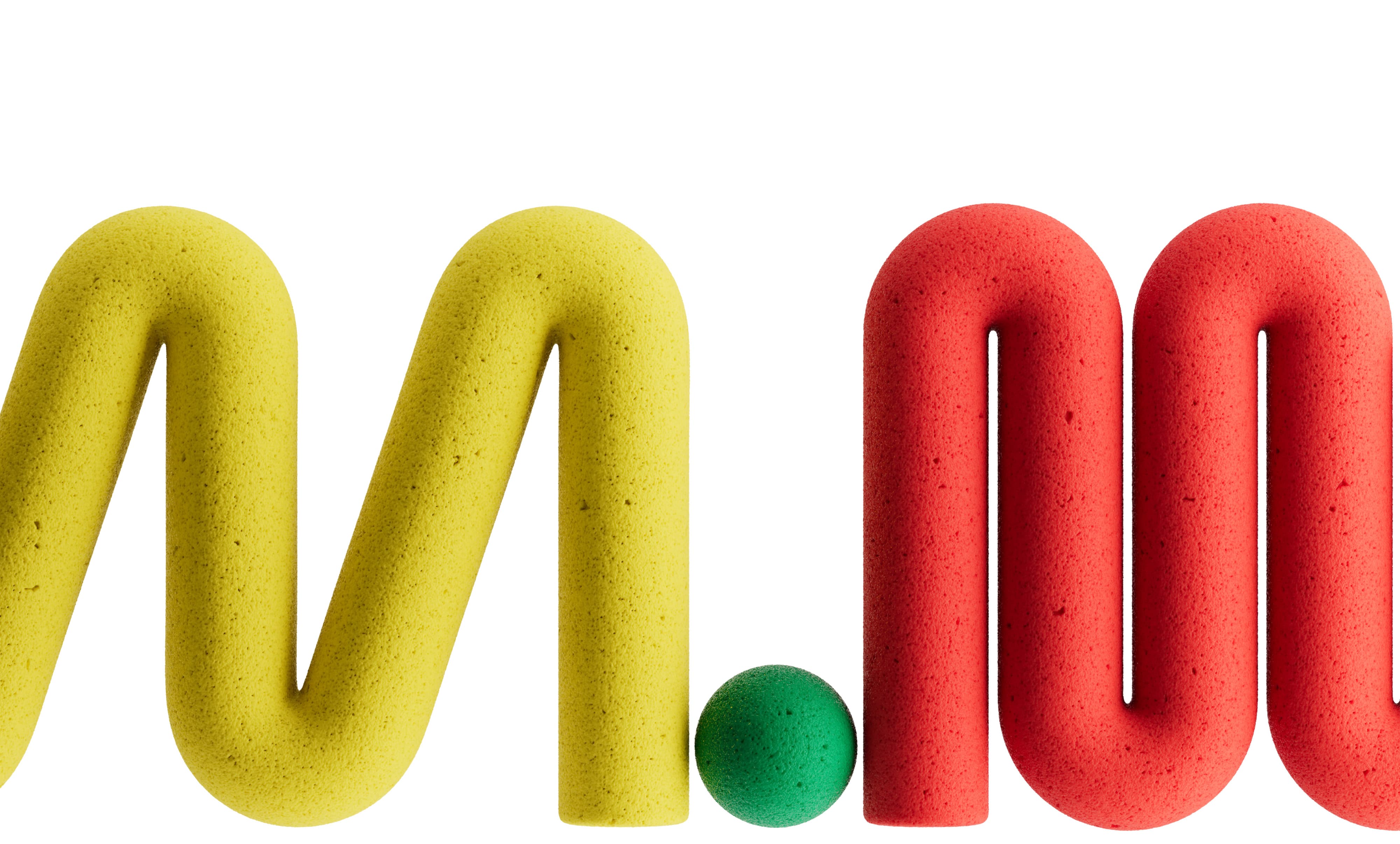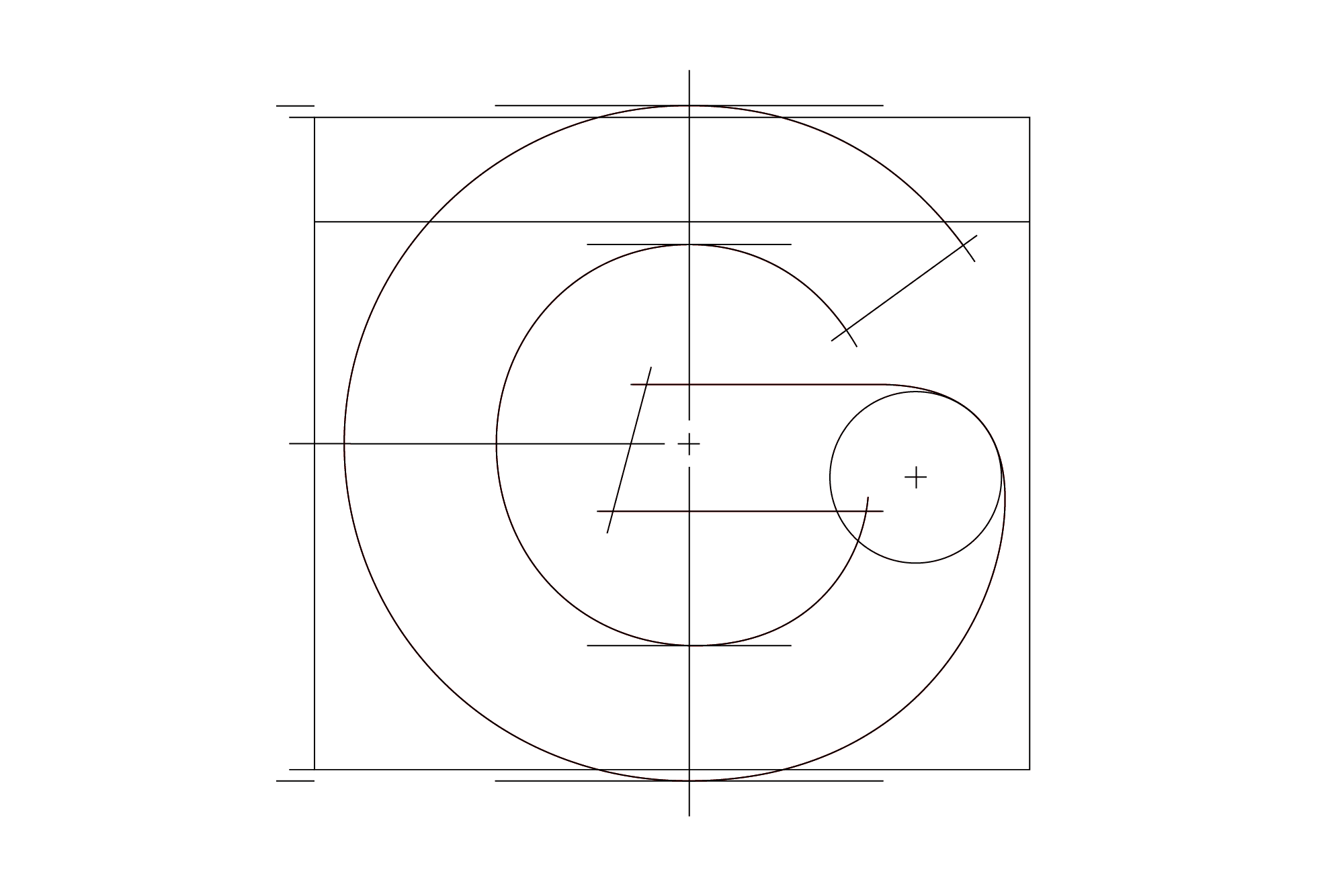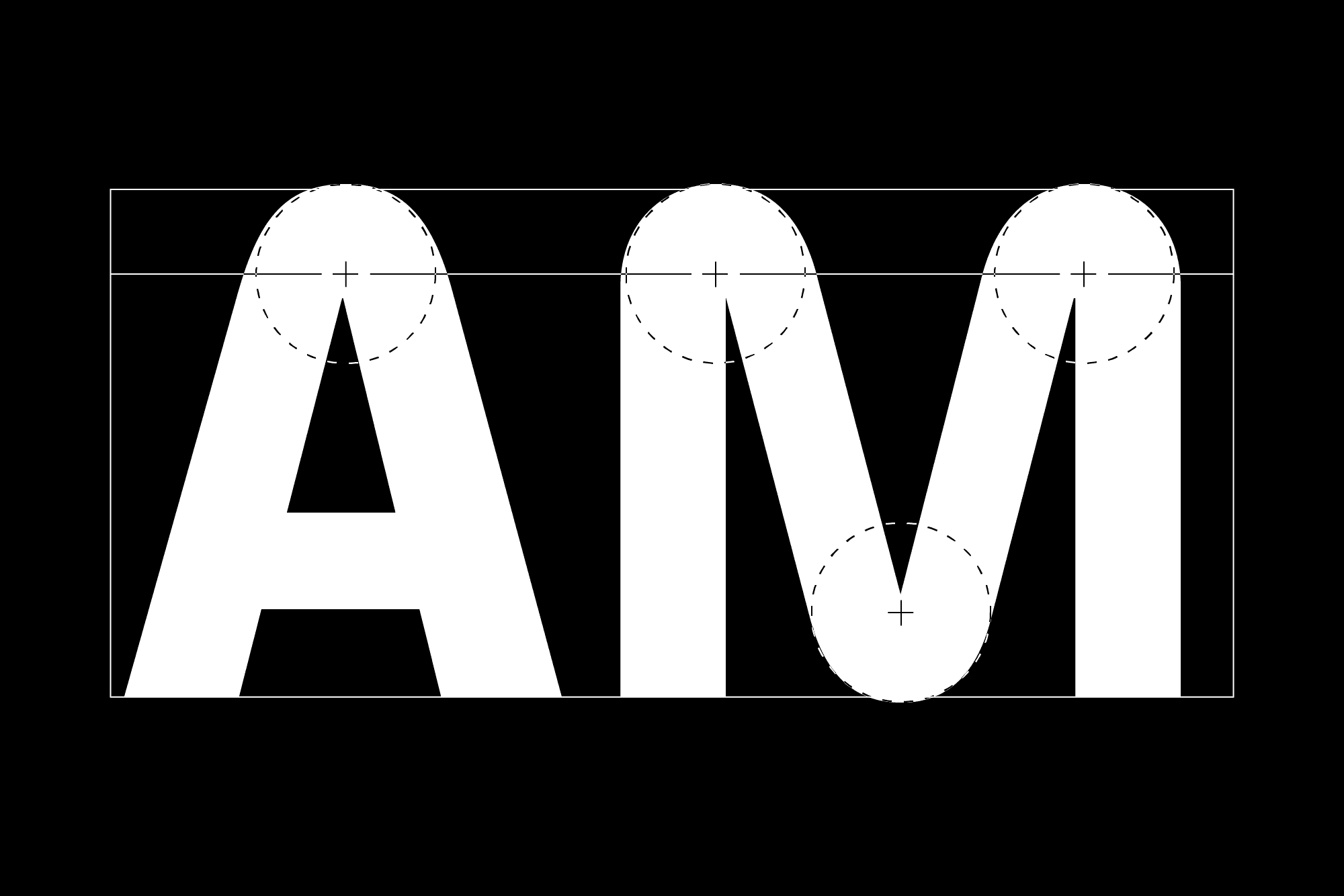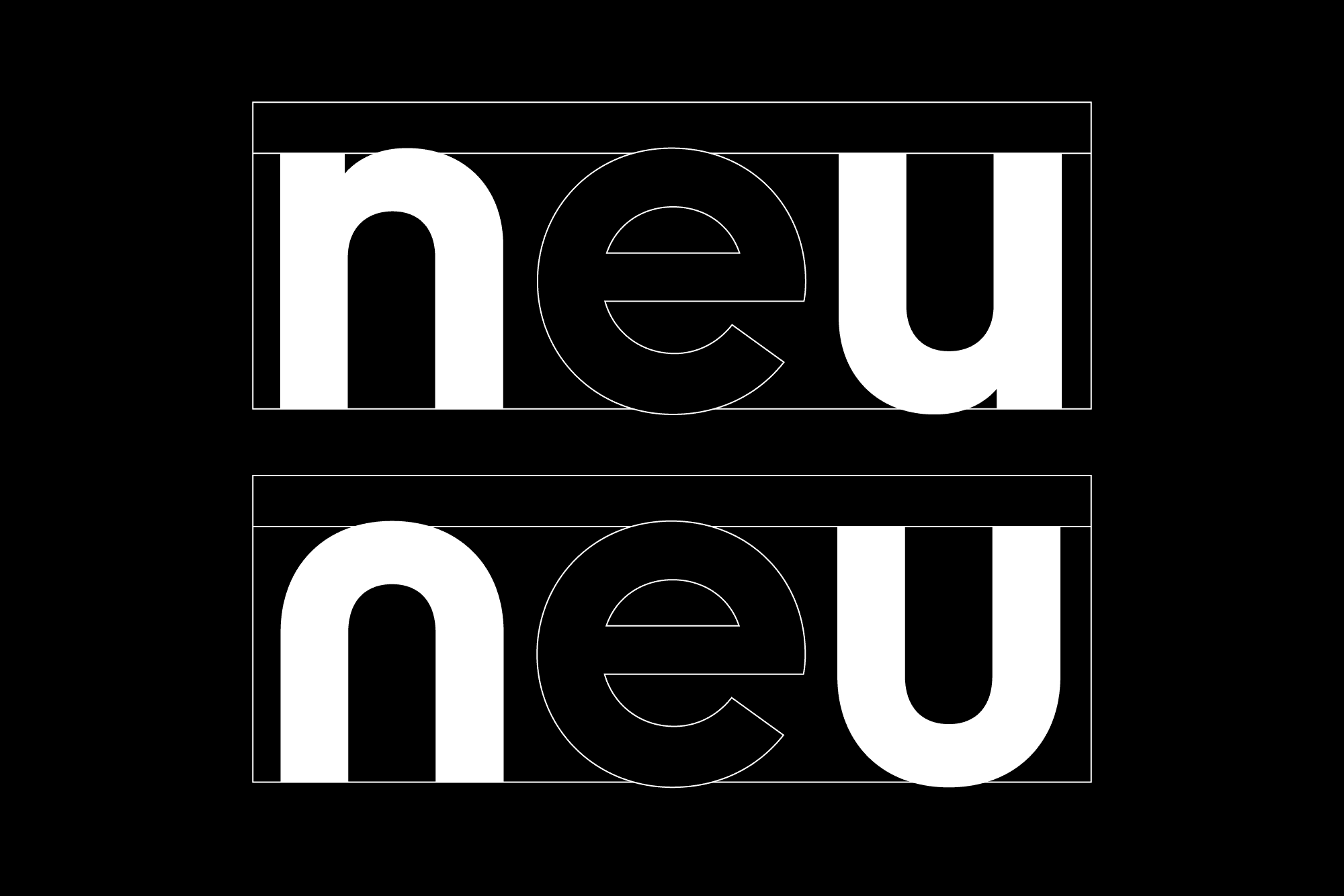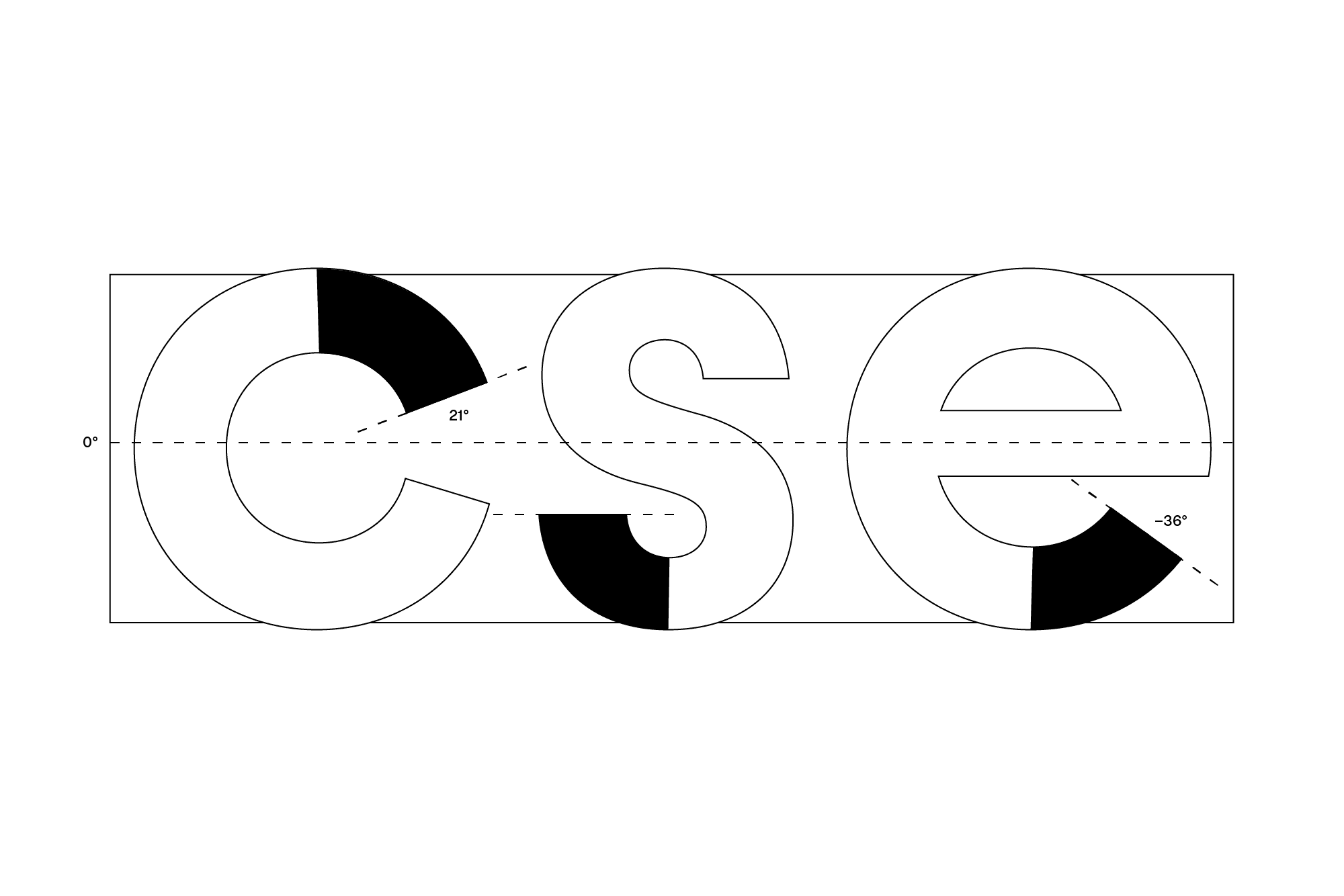
Youth might have skipped class once or twice – but it has learned a lot from the ‘Bauhaus’ genre of the phototypesetting era. The style has been reimagined with dynamic rounded corners and lively proportions, creating an unprecedented energy in bold cuts. Youth is systematic in appearance but not modular in construction. Instead, optically corrected curves create a contemporary balance that improves upon the style of its film-based ancestors. A distinctively high x-height facilitates use in headlines and lead paragraphs, while unexpected turns in drawing give the font a distinct character. As a shout out to Herb Lubalin,¹ David L Burke² and other designers from the phototypesetting/Letraset years of the late 60s and 70s, Youth has multiple stylistic sets, including one featuring lightweight, contrasting diacritics, as well as a wide range of alternative characters (both kinetic and geometric) that give the typeface extra universality for branding and identity projects.
Youth might have been the cool kid in the playground, but was still studious enough to check the bibliotheca in order to mention the name of the ‘haus within its proper context. This genre of typography was inspired by the forms in Herbert Bayer’s Universalschrift (1925). These later interpretations are often associated with the Bauhaus by name, but are in many ways in opposition to Bayer’s radical concept, which was created with only lowercase letters in the name of consistency and efficiency.³
1 ITC Avant Garde Gothic was released in 1970, while the first issue of Avant Garde magazine (1968) featured Herb Lubalin’s famous masthead.
2 Burko Bold was designed by David L Burke in 1967 and released in 1969 by Headliners Phototype in New York. The identity of the designer to first revive this style is contested, with many similar fonts released during the same time period.
3 ‘warum wir alles klein schreiben?’ in bauhaus journal 1, bauhaus dessau, 1926, p 6.
- Rounded forms
- Thin Diacritics
- Sporty
- Zürich
Rounded forms (ss01)
Unimark
Thin Diacritics (ss02)
(é-š)
Sporty (ss03)
WORMS